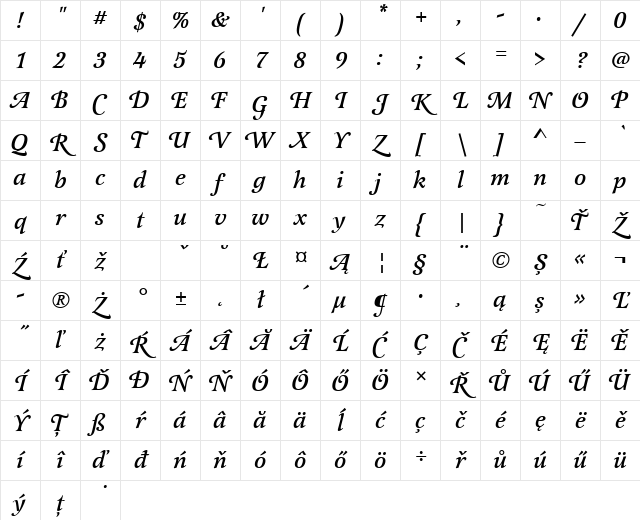
LatienneSwaTEEMed Italic
Design Context for LatienneSwaTEEMed
LatienneSwaTEEMed is a composed and adaptable typeface that performs quietly and consistently across a wide range of design contexts. The slanted form adds forward momentum and visual energy.